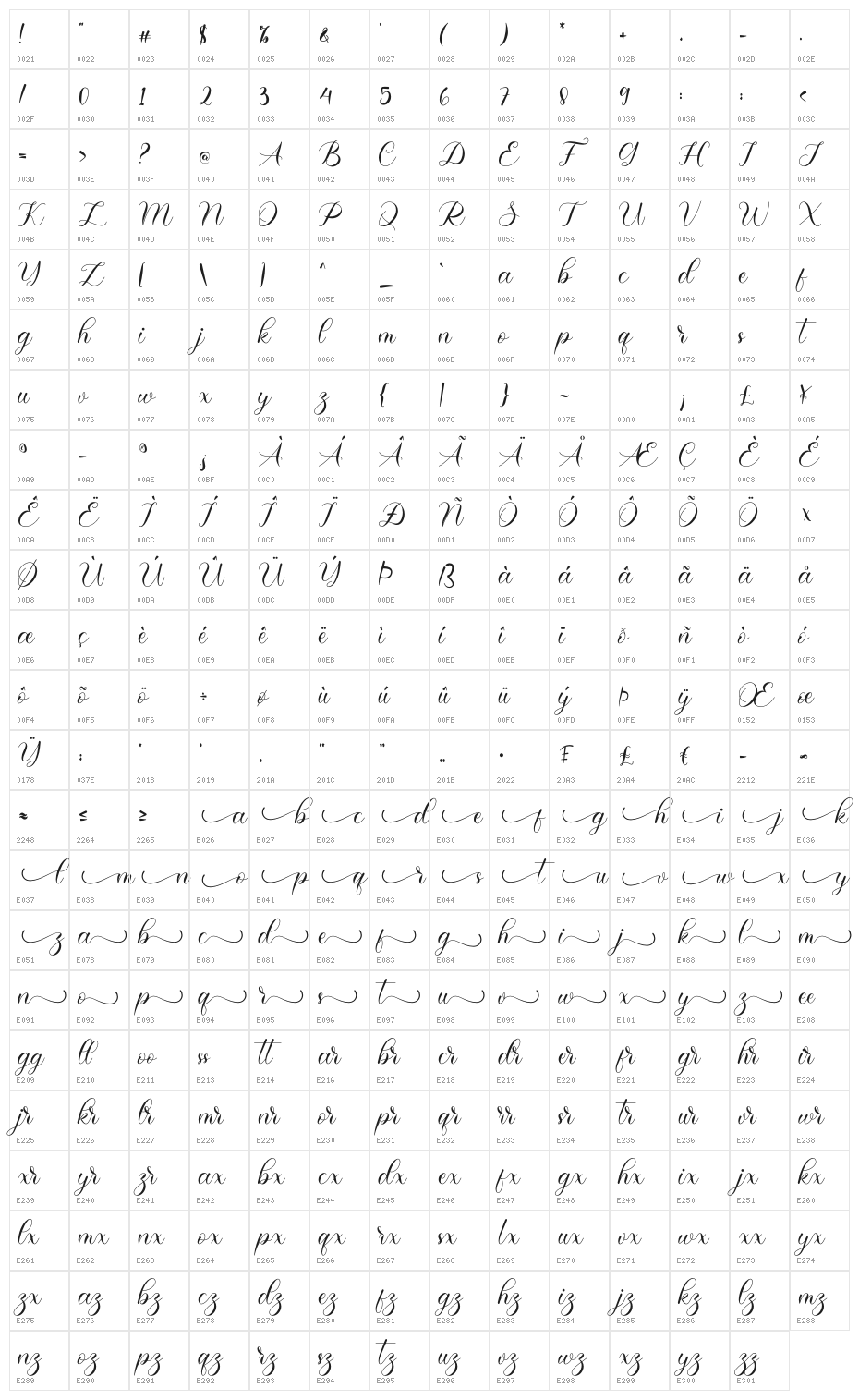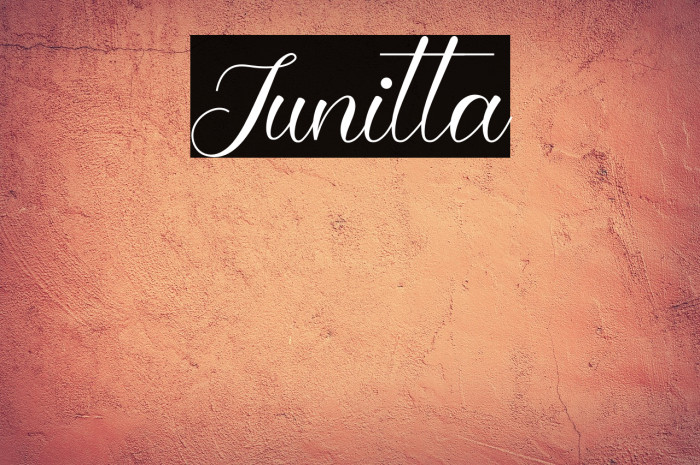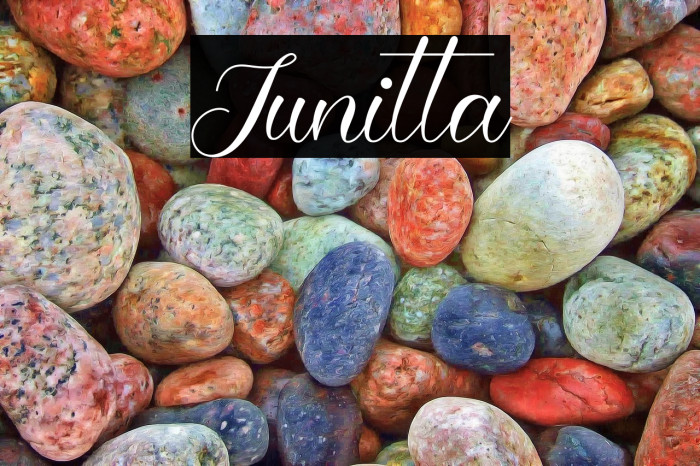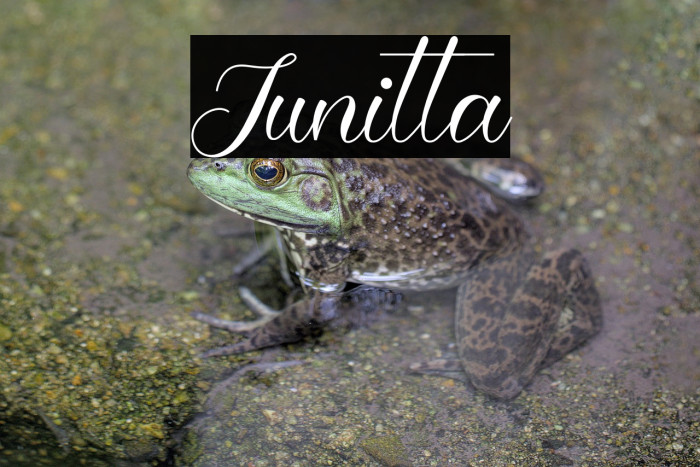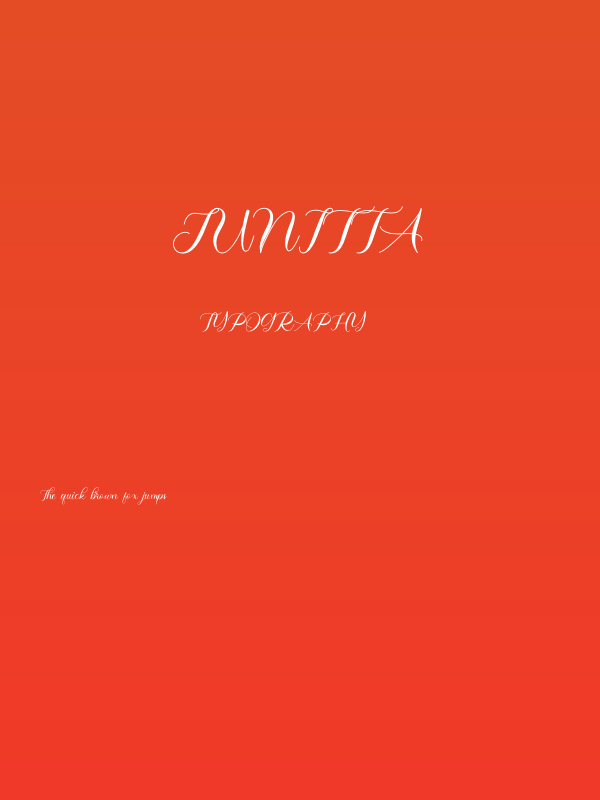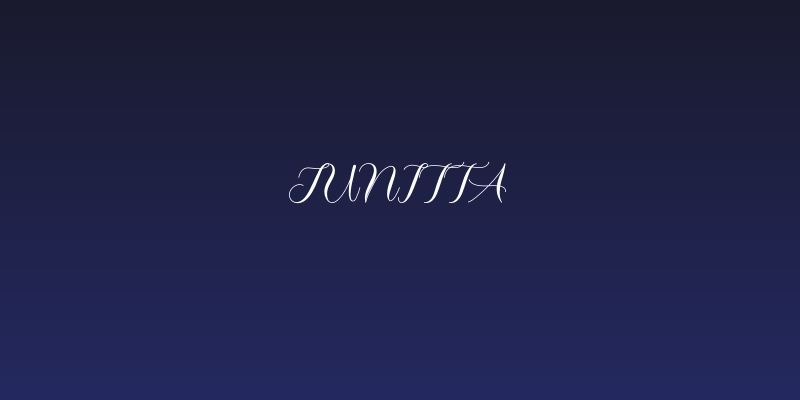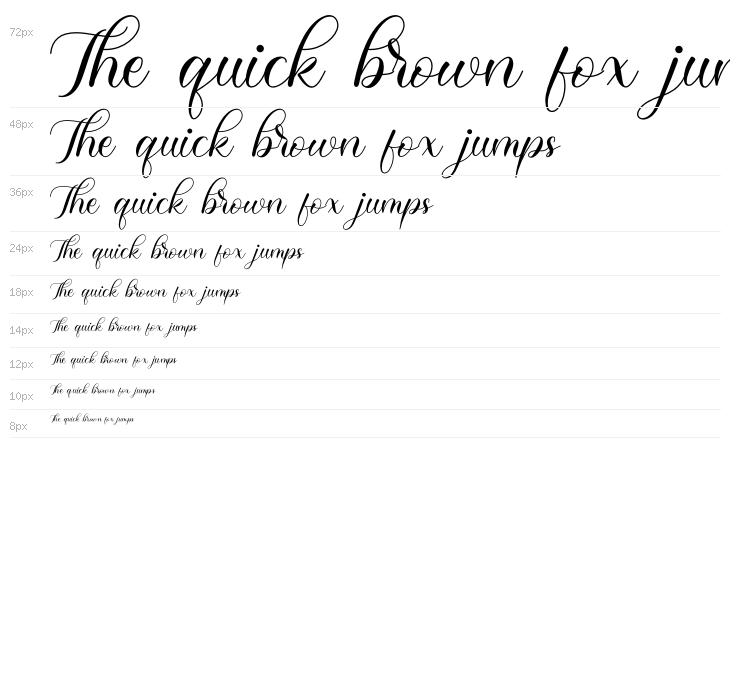
Junitta Font
Junitta Description
This elegant script font features flowing, cursive strokes that exude sophistication and grace. The uppercase letters are characterized by their sweeping lines and intricate loops, while the lowercase letters maintain a consistent fluidity that enhances readability. The numerals are distinct yet harmonize well with the overall style, and the special characters are crafted with the same attention to detail. This font is perfect for projects that require a touch of elegance and refinement, such as wedding invitations, formal event branding, or high-end product packaging.
| Use Case | Headlines, Invitations, Branding |
| Proposed Projects | Wedding invitations, formal event branding, luxury product packaging. |